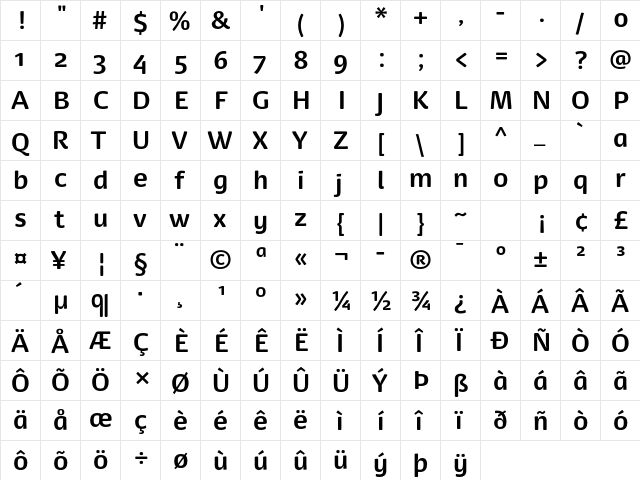
Dancer Pro Bold
| Foundry | Morten Rostgaard Olsen |
| Designer | Morten Rostgaard Olsen |
Design Context for Dancer Pro Typeface
Dancer Pro offers clean, dependable letterforms without strong stylistic allegiance, making it a practical choice for designers who need flexibility. Its bold stroke weight gives it real presence on the page.